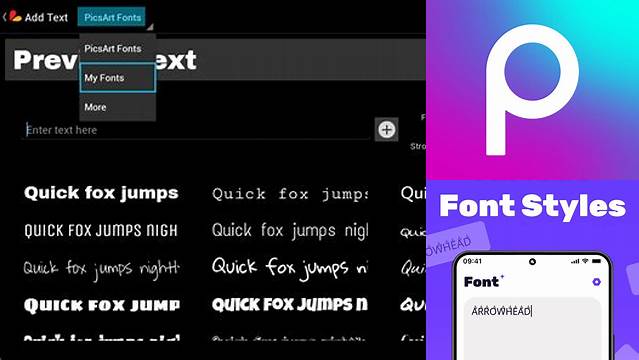
Hey guys! Want to make your PicsArt edits pop? One of the best ways to do that is with awesome fonts! Finding the perfect font can seriously elevate your designs, making them look professional and eye-catching. But who wants to pay a fortune for them? Nobody! That's why we're diving into the world of free PicsArt fonts for Android. Let's get started and transform those edits!
PicsArt Font Basics
Before we jump into downloading, let's cover some basics. Knowing what types of fonts PicsArt supports and how to install them is super important. Trust me, it'll save you a headache later. Understanding the technical stuff behind fonts isn't the most exciting thing ever, but it definitely pays off when you're trying to get that perfect look for your project. You need to think of typography as a way to set a mood, so keep in mind the font styles used by the brand you want to emulate, or try to match the font style to the image you are editing to ensure that it's cohesive and professional. Ultimately, knowing the basics can help you create visually impressive designs.
Font Styles and Their Uses
Different fonts evoke different feelings and are suitable for different purposes. A playful script font might be perfect for a birthday card, but totally inappropriate for a professional business presentation. Understanding font styles – like serif, sans-serif, script, and decorative – and when to use them is key to creating effective and visually appealing designs. Experiment with different combinations to see what works best for your project and always consider the overall message you're trying to convey.
Top 10 Free Fonts for PicsArt
Need some inspiration? Here are 10 awesome free PicsArt fonts that you can download right now: 1) Montserrat, 2) Open Sans, 3) Roboto, 4) Lato, 5) Raleway, 6) Oswald, 7) PT Sans, 8) Ubuntu, 9) Merriweather, and 10) Playfair Display. These fonts are versatile, easy to read, and look great in a variety of designs. Plus, they're all available for free on Google Fonts! Give them a try and see how they transform your PicsArt edits.
How to Pair Fonts Like a Pro
Using multiple fonts in a design can add visual interest, but it can also be a recipe for disaster if not done correctly. The key to font pairing is to choose fonts that complement each other, rather than clash. A good rule of thumb is to pair a serif font with a sans-serif font. For example, you could use Playfair Display for headings and Open Sans for body text. Experiment with different combinations and don't be afraid to break the rules, but always make sure the fonts work together harmoniously.
Creating Custom Text Effects
Want to take your text to the next level? PicsArt offers a ton of cool features that allow you to create custom text effects. You can add shadows, outlines, gradients, and textures to your text to make it stand out. Experiment with different effects and settings to create unique and eye-catching typography. Combining these effects with your free PicsArt fonts can create truly amazing designs!
Animated Fonts for Dynamic Designs
Animated fonts, though less common, can add a dynamic and eye-catching element to your designs. These fonts feature characters that move, change, or transform over time. While PicsArt's support for animated fonts may be limited, exploring this option can lead to unique and engaging visuals. Search for resources that offer free animated fonts and experiment with their integration into your PicsArt projects.